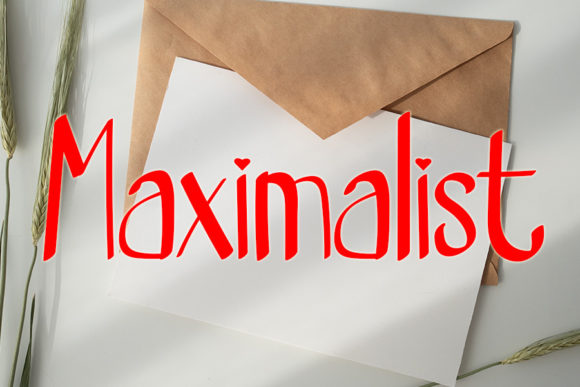
Feast your eyes on Maximalist Font, a stroke of minimalist brilliance that dances gracefully across your designs with its handwritten charm. This font, a brainchild of Mr.Soon Design, embodies the essence of simplicity with its neat and unassuming style. But don't let its humble demeanor fool you; Maximalist is a font of immense versatility, effortlessly adapting to a multitude of design scenarios.
Imagine your designs adorned with Maximalist's elegant curves and effortless flow. Its script-like strokes evoke a sense of artistry and craftsmanship that instantly captivates the eye. Whether you're creating quote art, branding your business, or crafting social media posts, Maximalist is your trusty companion, elevating your designs to new heights of sophistication.
With Maximalist, you'll discover the joy of effortless creativity. Its user-friendly design makes it a breeze to work with, allowing you to focus on expressing your artistic vision without getting bogged down by technicalities. Unleash your imagination and watch as your designs come to life with a touch of Maximalist's minimalist magic. It's the perfect font for those seeking a balance between simplicity and elegance, a font that whispers sophistication without overwhelming your designs.
Maximalist is more than just a font; it's an experience. Its meticulously crafted characters invite you on a journey of artistic exploration, where every letter becomes a brushstroke, every word a work of art. As you type, you'll feel the creative energy coursing through your veins, transforming your mundane words into something extraordinary.
So why settle for ordinary fonts when you can embrace the extraordinary? Choose Maximalist Font and unlock a world of creative possibilities. Let its minimalist charm and boundless versatility be your guiding light as you embark on a design journey like no other.